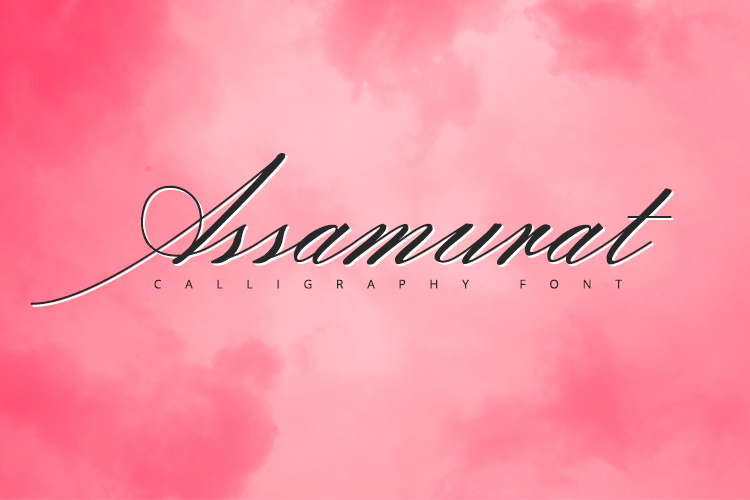
Assamurat - Calligraphy Font
Assamurat is calligraphy font. I creat it for one week. Assamurat font is perfect for wedding invitation, logo design, lettering, typography, and other.